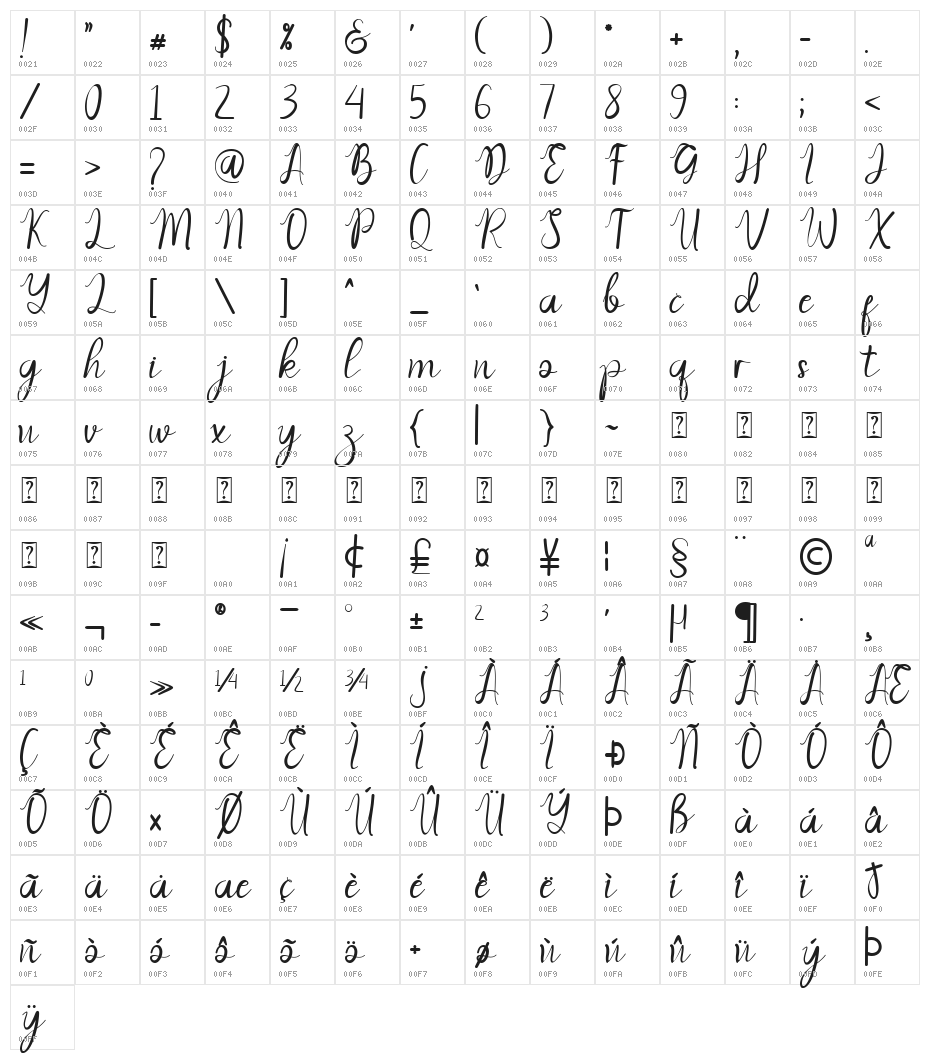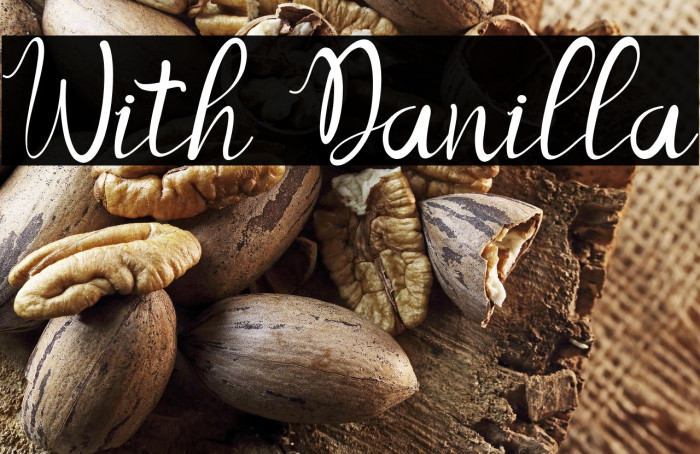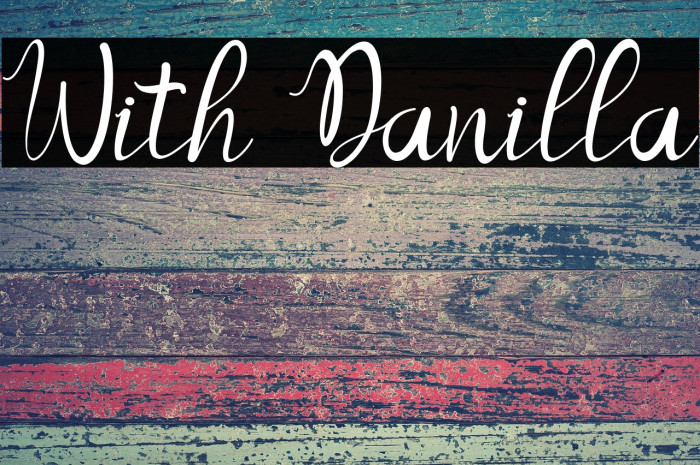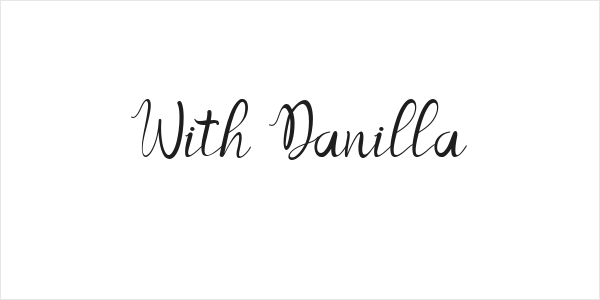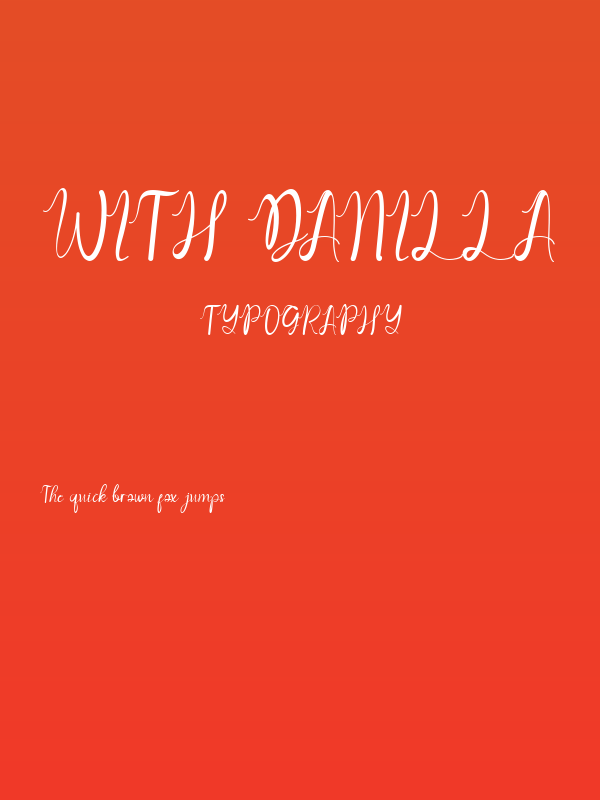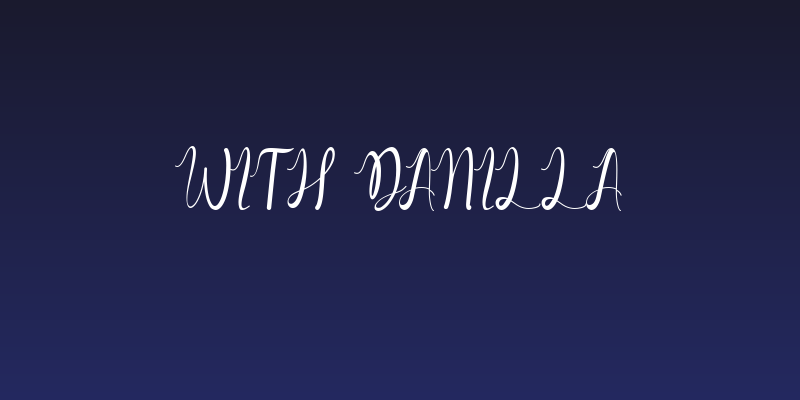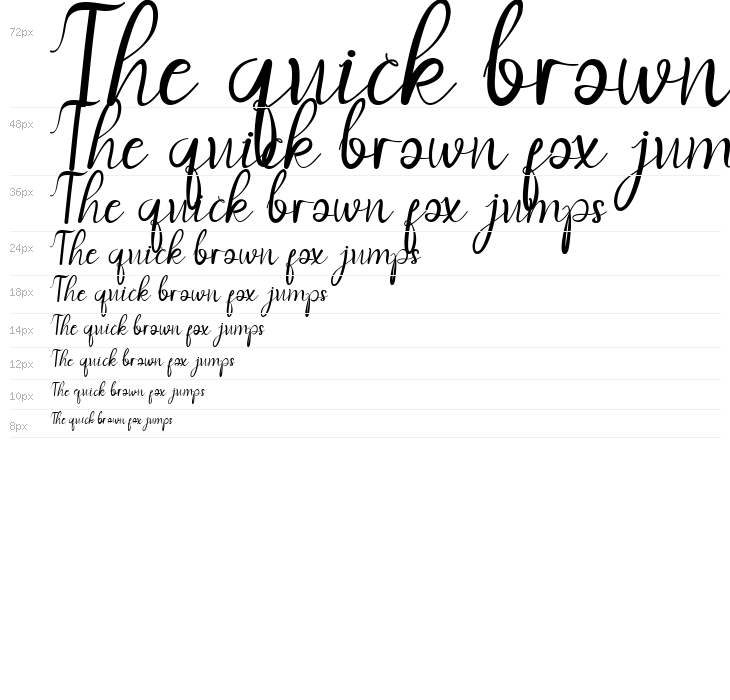
With Danilla Font
With Danilla Description
This font features a flowing, cursive style with elegant loops and swashes that give it a handwritten appearance. The uppercase letters are tall and graceful, with a consistent slant that adds to the fluidity of the design. The lowercase letters maintain the same slant and are connected, enhancing the script-like quality. Numbers are clear and slightly more upright, ensuring readability. Special characters are designed to match the overall aesthetic, with smooth curves and a cohesive look. The font's overall appearance is both stylish and legible, making it suitable for a variety of creative applications.
| Overall Style | Elegant, Handwritten |
| Use Case | Headlines, Invitations, Logos |